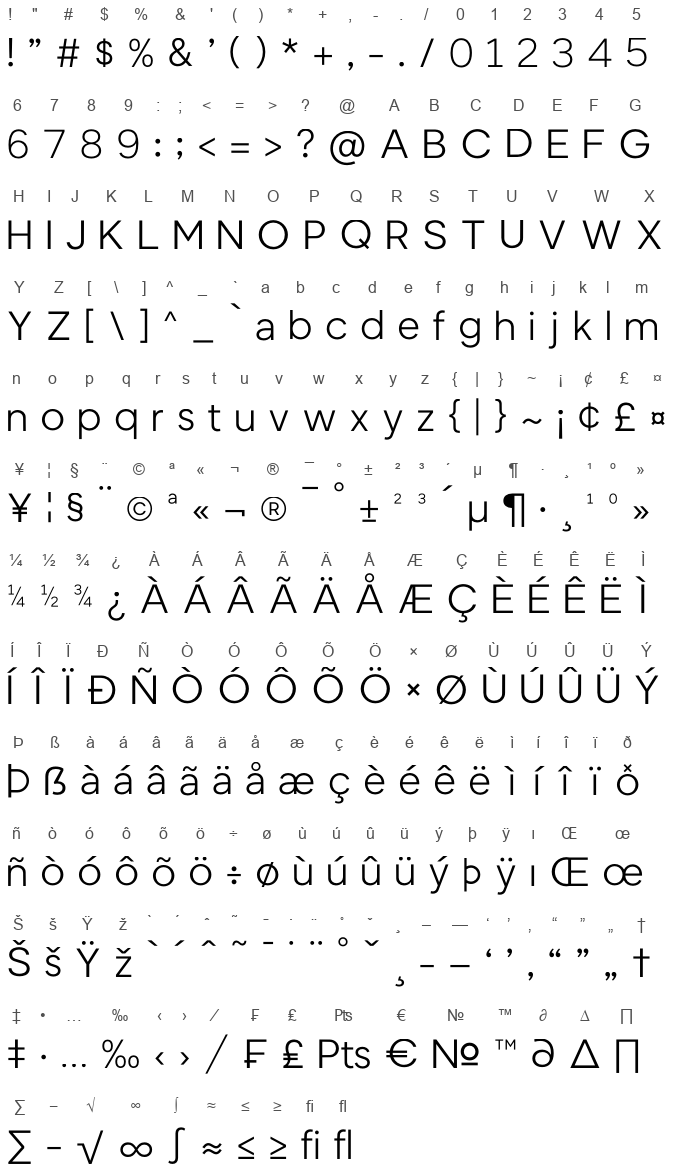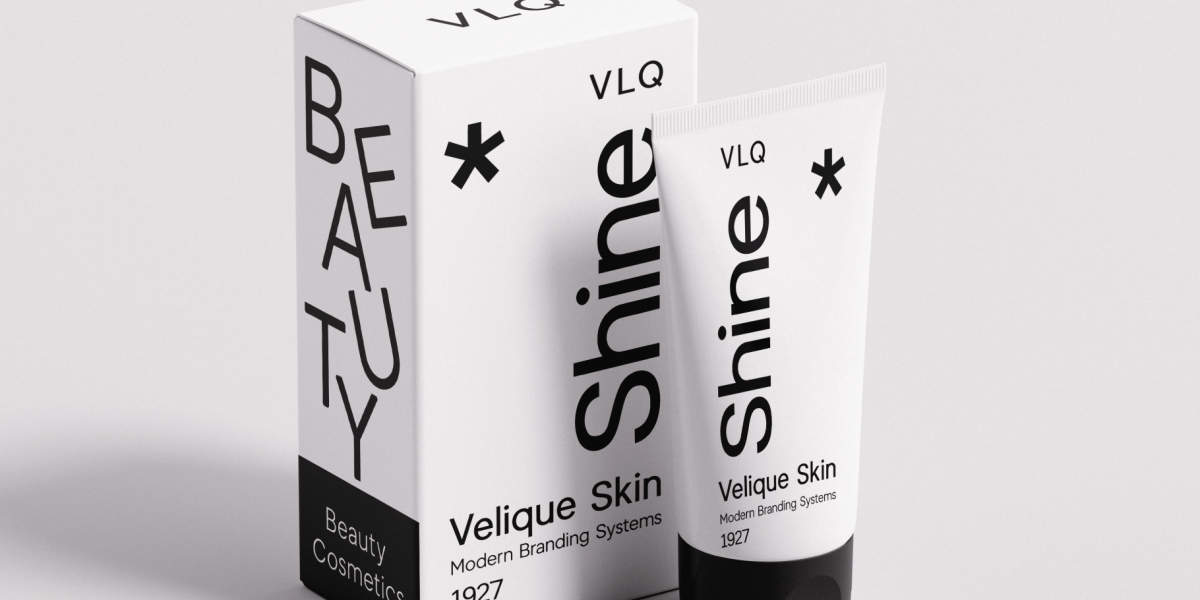
Velique Sans
Typeface © Syaqi Studio. 2026. All Rights Reserved. Velique Sans Regular:Version 1.000. Velique Sans. Version 1.000;July 3, 2026;FontCreator 15.0.0.3042 64-bit. VeliqueSans-Regular. Muhammad Asroful Umam. Velique Sans is a contemporary neutral sans serif crafted for modern branding, editorial systems, and refined digital interfaces. Designed with calm proportions, balanced spacing, and subtle humanist details, Velique Sans delivers a clean, sophisticated, and highly versatile typographic voice for contemporary visual design.